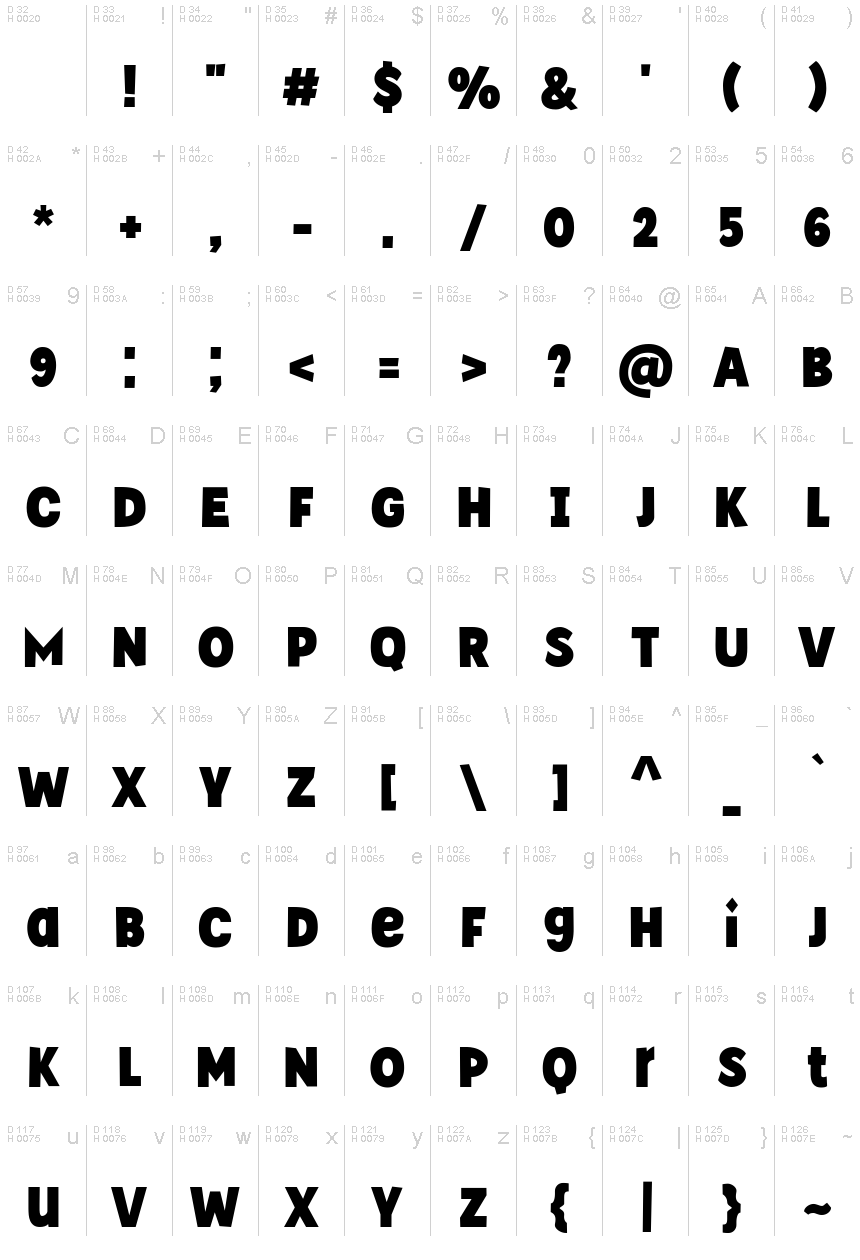
Super Toast
Super Toast is a bold, cartoon-style display font that exudes a playful and energetic vibe. Designed by fsuarez913, this captivating typeface boasts thick, rounded letterforms and a distinct retro-inspired aesthetic. The font's bold weight and whimsical character make it an excellent choice for a variety of design applications, from eye-catching headlines and logo designs to vibrant packaging and branding elements.
Its strong personality and attention-grabbing appeal ensure that Super Toast stands out, making it a versatile tool for creating memorable visual experiences across various creative projects.
Introducing Super Toast: The Font That's Lit! Spread the joy with Super Toast, a font so extraordinarily playful it'll have your words dancing on the page.